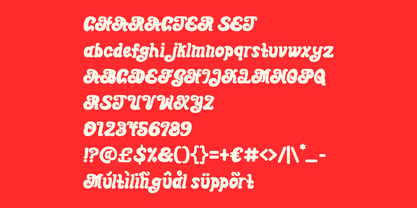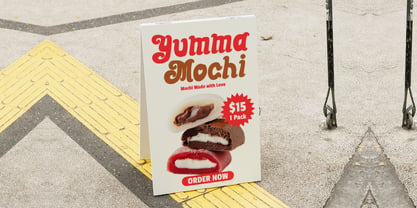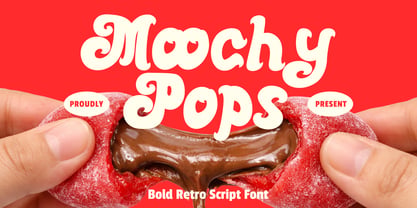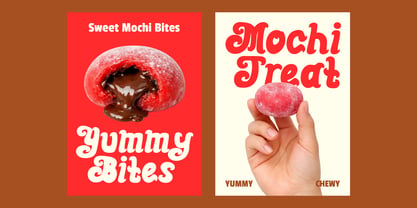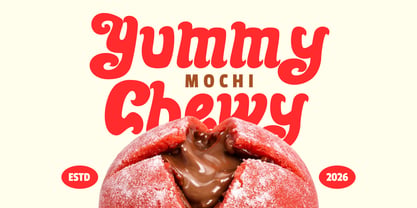
Moochy Pops
The Moochy Pops Font Family was designed by Yesie Erma Yunita and published by Shanaf. Moochy Pops contains 1 styles. More about this family
Moochy Pops Bold Retro Script Font is a playful display script inspired by retro food branding. The letterforms feature thick strokes with soft curves and rounded terminals. Each character appears slightly condensed yet maintains smooth flowing connections. The structure combines bold weight with gentle swashes that add movement and rhythm. The curves feel organic and slightly exaggerated, creating a friendly and expressive tone. Stroke contrast remains minimal, reinforcing a solid and consistent visual presence. Moochy Pops Bold Retro Script Font blends vintage script style with modern readability. The design communicates sweetness, fun, and approachability. It works well for logo design, food branding, and eye catching display typography. The bold script structure creates a warm and inviting feel for food related design projects. Designers can use this typeface for product logos, packaging labels, and promotional materials. It fits perfectly for dessert brands, snack businesses, and sweet product packaging. The rounded forms enhance readability while keeping a playful character. Moochy Pops Bold Retro Script Font also works well for posters, menu headlines, stickers, greeting cards, and advertising graphics. It supports creative branding for cafes, dessert shops, confectionery brands, and food startups. The flowing shapes help build strong and memorable visual identity across various media.